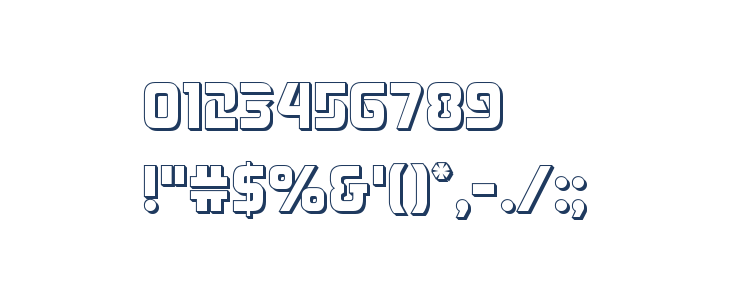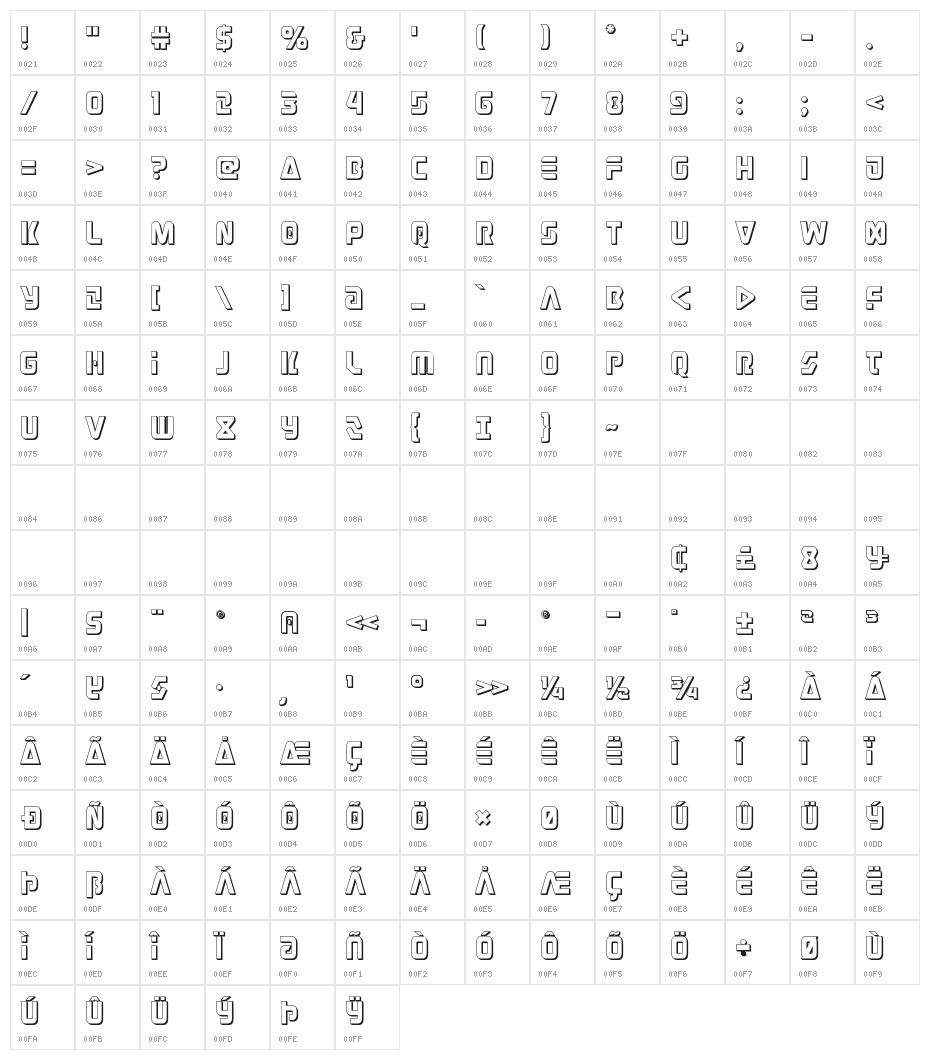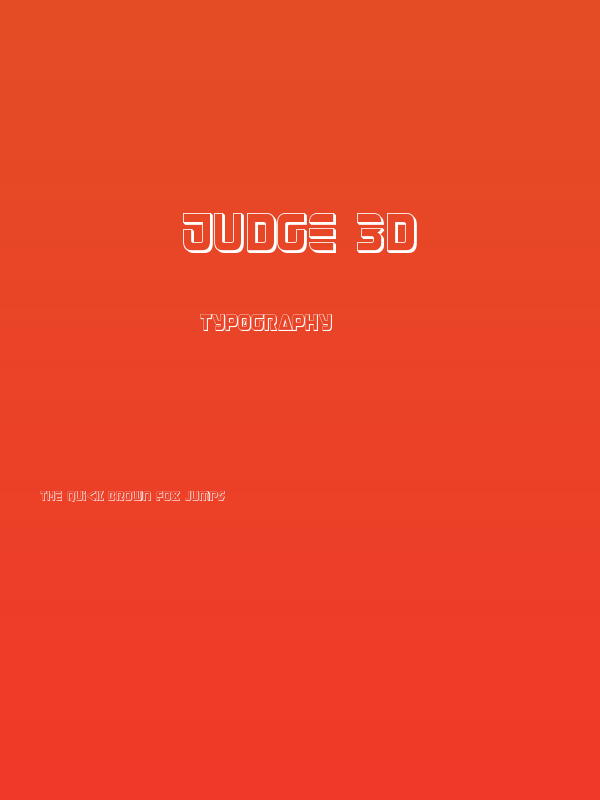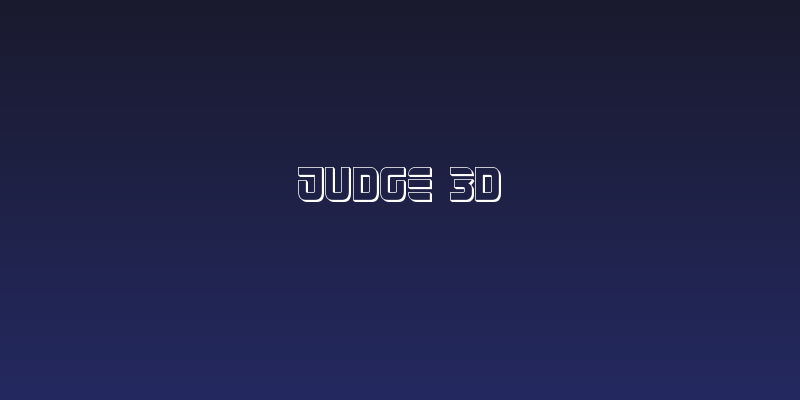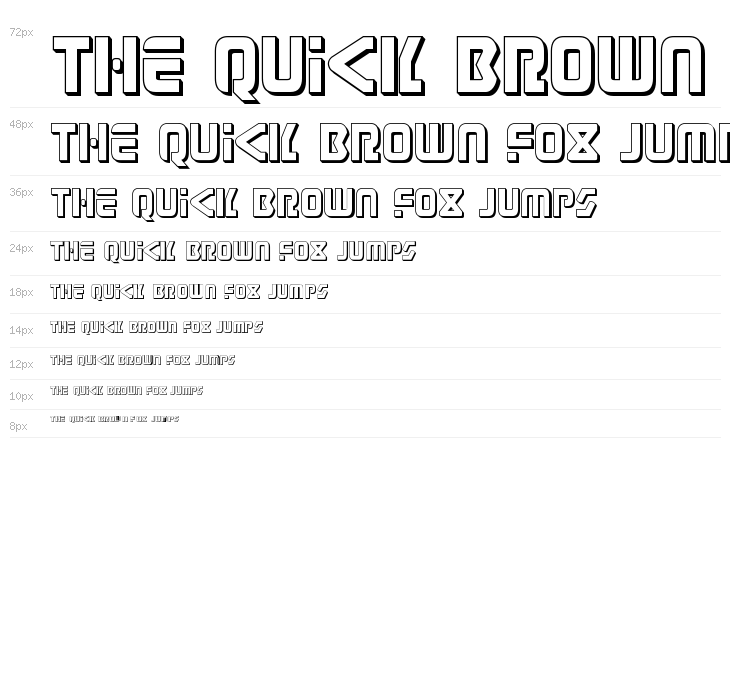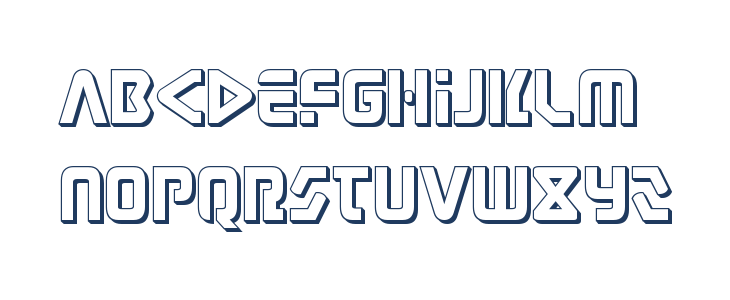
Judge 3D Font
Judge 3D Description
This font features a bold, geometric design with a three-dimensional effect, giving it a futuristic and dynamic appearance. The characters are outlined, creating a hollow effect that enhances the 3D illusion. Each letter and number is crafted with sharp angles and clean lines, contributing to its modern and edgy style. The uppercase and lowercase letters maintain a consistent design, while the numerals and special characters follow the same aesthetic, ensuring uniformity across all glyphs. This font's unique structure makes it stand out, ideal for projects that require a strong visual impact.